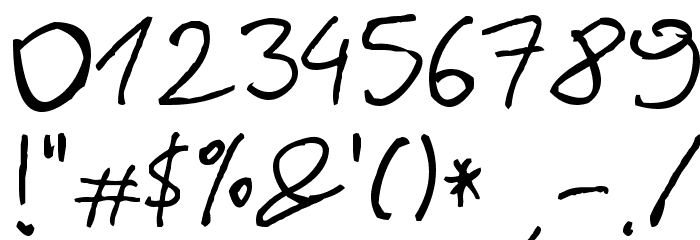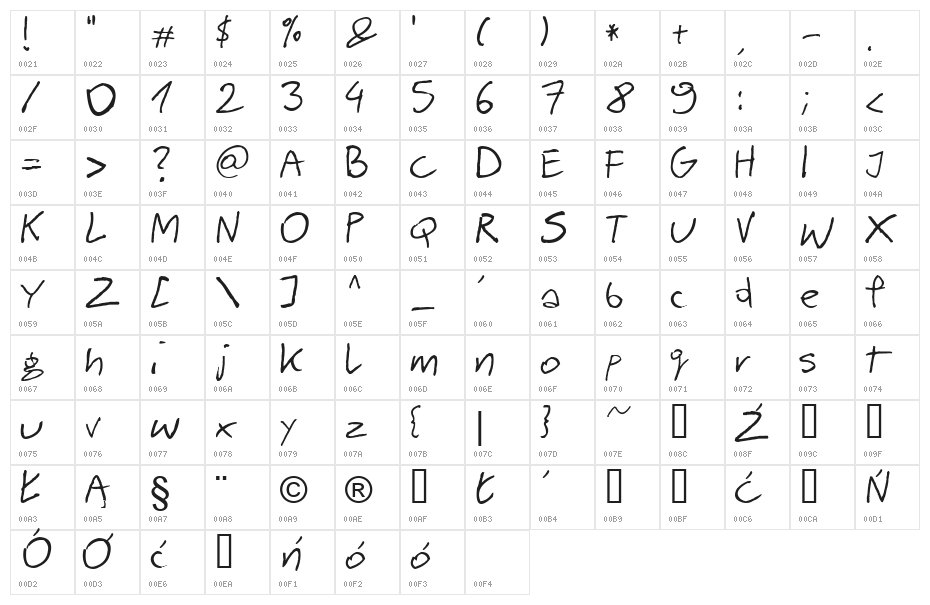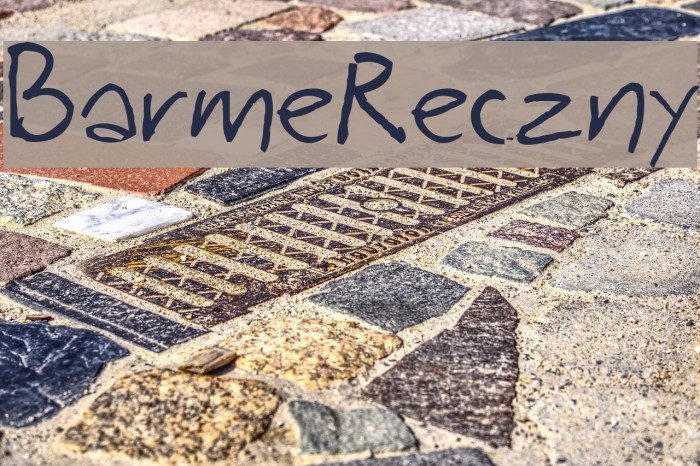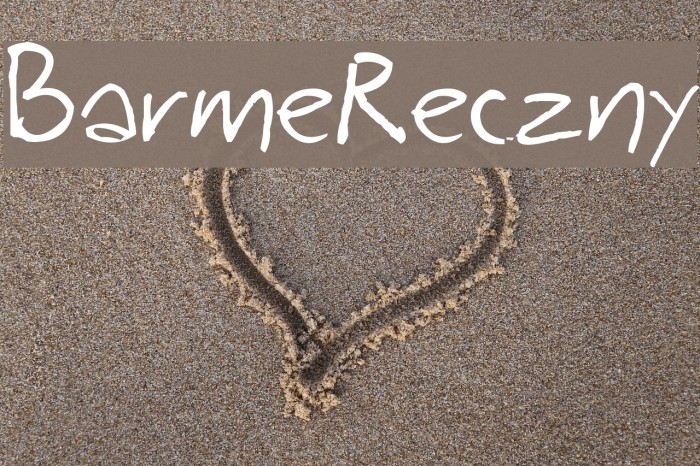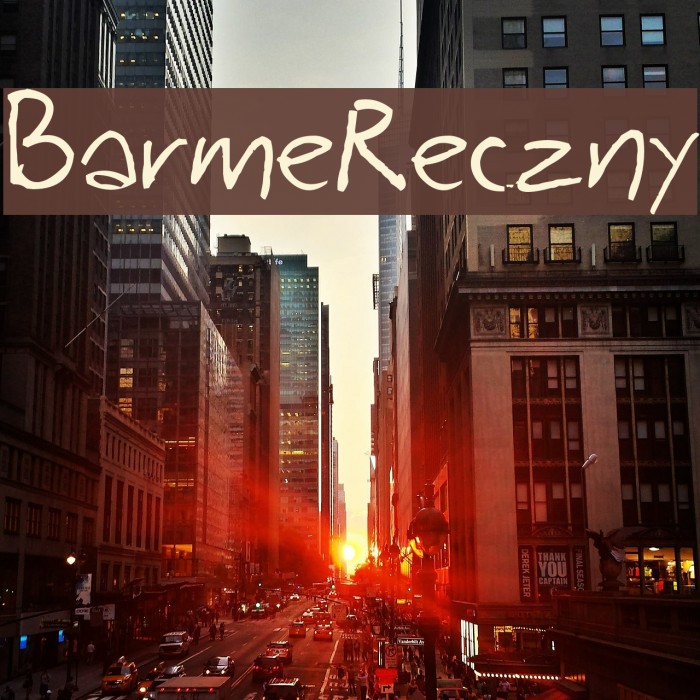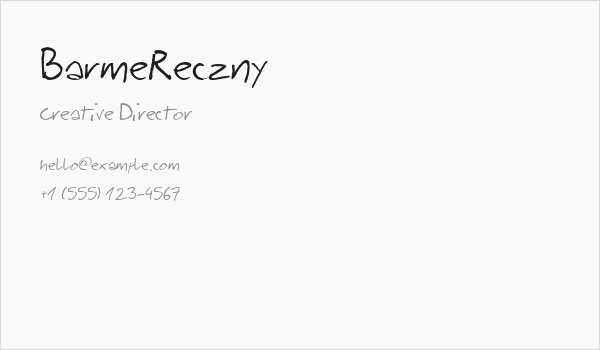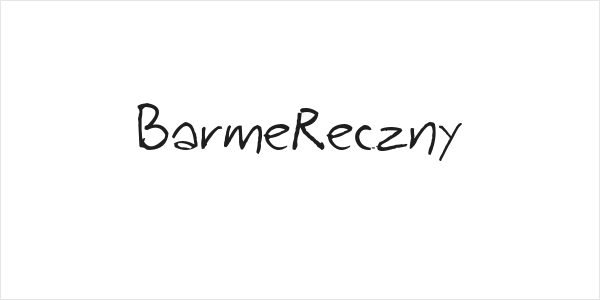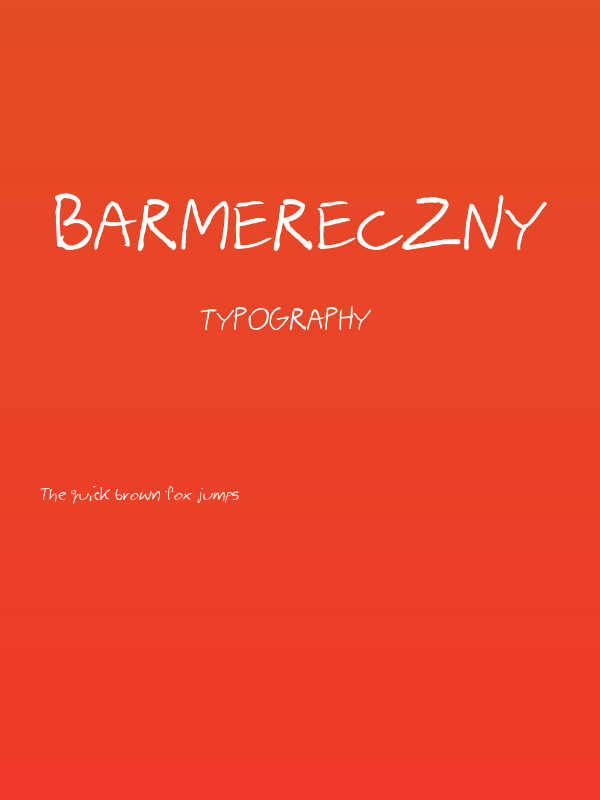
BarmeReczny Font
BarmeReczny Description
This font exudes a casual, handwritten style, characterized by its fluid and organic strokes. The letters are slightly irregular, giving it a personal and informal touch, reminiscent of a quick note or a personal letter. The uppercase and lowercase letters maintain a consistent style, with a playful and approachable appearance. Numbers and special characters follow the same handwritten aesthetic, ensuring a cohesive look across all elements. The overall impression is friendly and accessible, making it suitable for projects that require a personal or informal tone.
| Use Case | Greeting cards, Personal notes, Informal invitations |
| Proposed Projects | Ideal for personal notes, informal invitations, greeting cards, and creative projects that require a personal touch. |